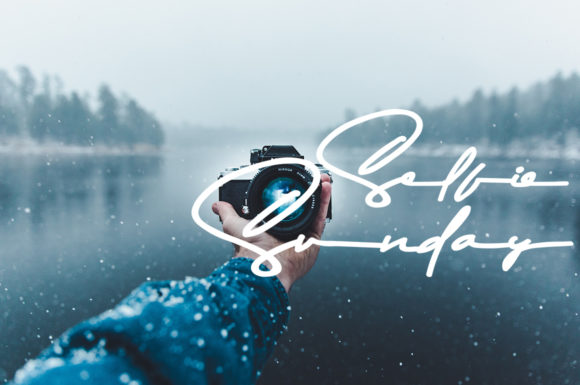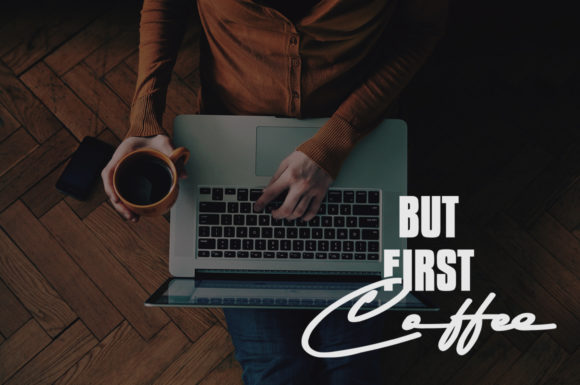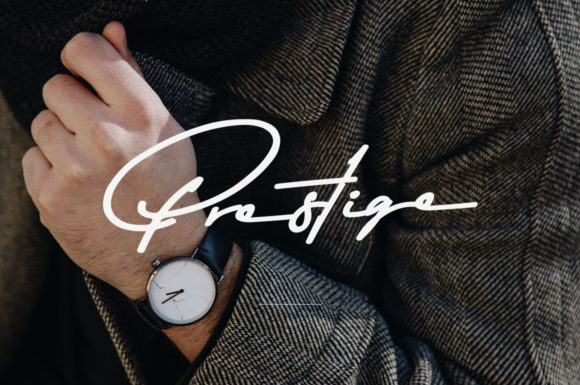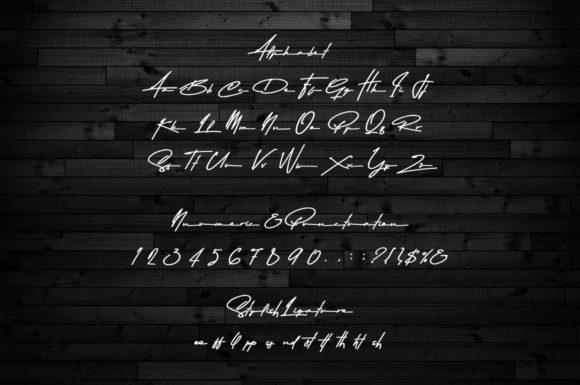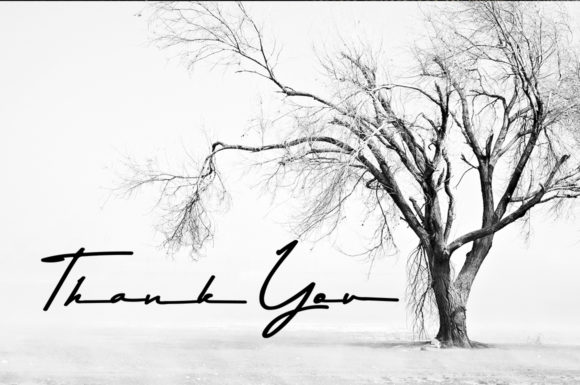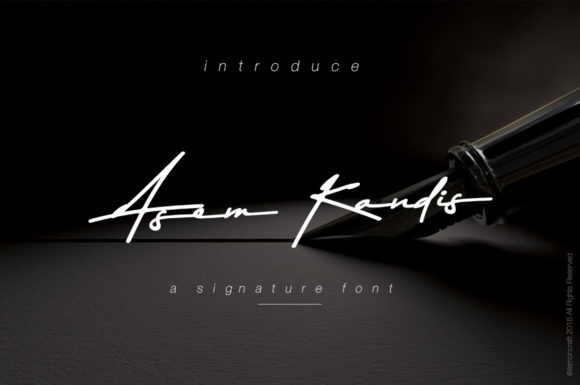
Discover the Elegance of Asem Kandis Font: A Handwritten Signature Script
The Asem Kandis font is a beautiful, handwritten signature script that exudes elegance and prestige. With its natural, flowing strokes and impressive handwriting style, it’s no wonder that this font has gained popularity among designers, crafters, and anyone looking to add a touch of sophistication to their projects.
The Story Behind Asem Kandis Font
The Asem Kandis font is a unique and authentic handwritten script that was written directly by hand without a draft. This approach gives the font its distinctive, organic feel and sets it apart from more traditional fonts. The result is a script that looks like it was written by a skilled calligrapher, with each letter and stroke carefully crafted to create a sense of movement and fluidity.
Characteristics of Asem Kandis Font
The Asem Kandis font boasts several characteristics that make it an excellent choice for designers and crafters. Some of its notable features include:
• Elegant and prestigious style: The Asem Kandis font has a refined, sophisticated look that’s perfect for projects that require a touch of luxury or high-end quality.
• Natural and impressive handwriting: The font’s handwritten style gives it a unique, personal feel that’s sure to capture the attention of your audience.
• Flowing strokes and connections: The Asem Kandis font features smooth, connected strokes that create a sense of movement and fluidity.
• High legibility: Despite its elegant style, the Asem Kandis font remains highly legible, making it suitable for use in a variety of applications, from headings and titles to body text.
Uses for Asem Kandis Font
The Asem Kandis font is versatile and can be used in a wide range of projects, including:
• Graphic design: Use the Asem Kandis font to add a touch of elegance to your graphic design projects, such as logos, brochures, and posters.
• Crafting and scrapbooking: The Asem Kandis font is perfect for crafters and scrapbookers looking to add a personal touch to their projects.
• Wedding and event planning: The font’s elegant style makes it an excellent choice for wedding invitations, event programs, and other stationery.
• Digital marketing: Use the Asem Kandis font to create eye-catching social media graphics, email headers, and other digital marketing materials.
Tips for Using Asem Kandis Font
To get the most out of the Asem Kandis font, follow these tips:
• Use it sparingly: The Asem Kandis font is best used in moderation, as its elegant style can be overwhelming if overused.
• Pair it with complementary fonts: Combine the Asem Kandis font with simpler fonts to create visual interest and add depth to your designs.
• Experiment with colors and textures: The Asem Kandis font looks great in a variety of colors and textures, so don’t be afraid to experiment and find the perfect combination for your project.
The Asem Kandis font is a beautiful, handwritten signature script that’s perfect for designers, crafters, and anyone looking to add a touch of elegance to their projects. With its natural, flowing strokes and impressive handwriting style, this font is sure to make a lasting impression. Whether you’re working on a graphic design project, crafting a handmade card, or planning a special event, the Asem Kandis font is an excellent choice.